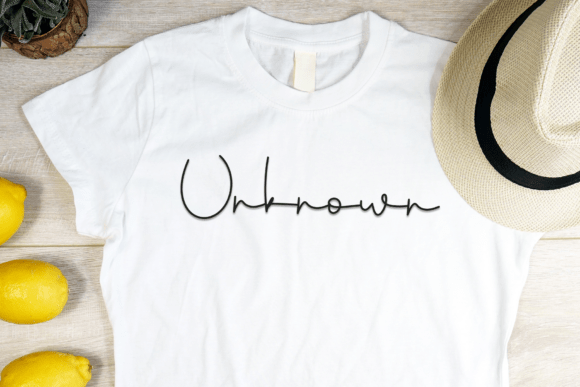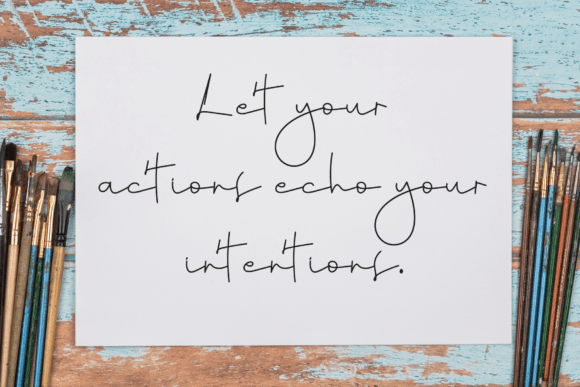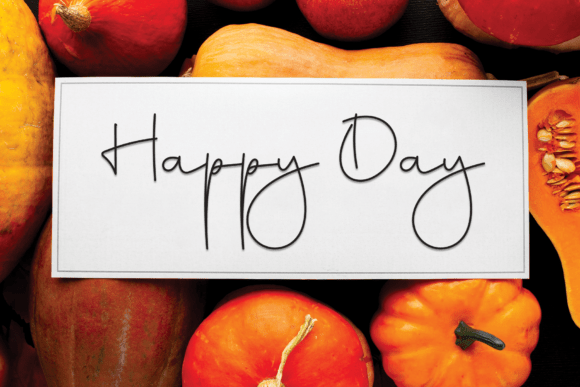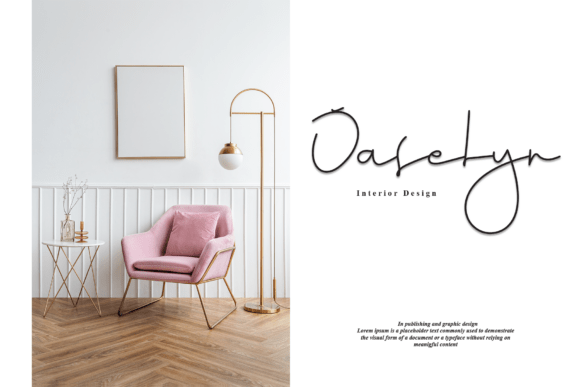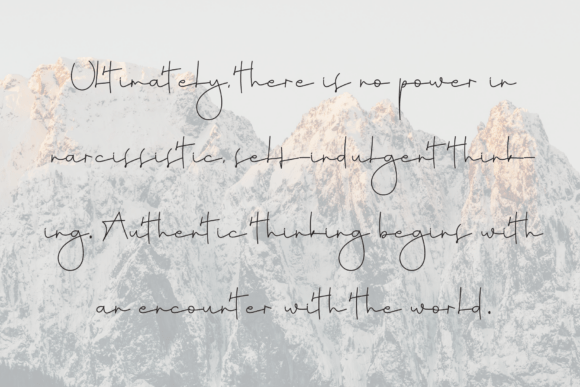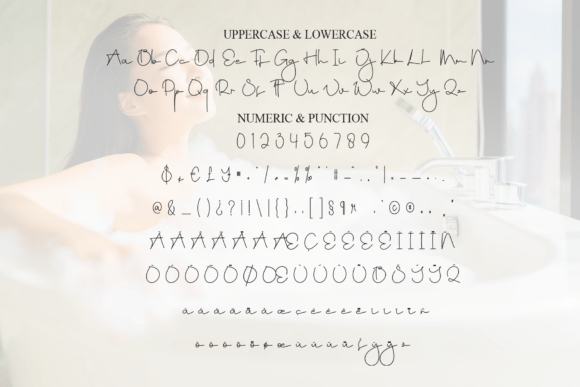
Introducing Bathine Font: Elevate Your Creative Vision with Effortless Elegance
In the world of typography, a new handwritten font has emerged to capture the essence of modern sophistication. Meet Bathine, a stunning typeface that embodies the effortless grace of a contemporary signature. With its unique blend of thin, monoline weight and oversized, fluid capitals, Bathine is poised to elevate your creative vision and add a touch of luxury to your visual identity.
The Characteristics of Bathine Font
Bathine font is defined by its distinct characteristics, which set it apart from other typefaces. Its thin, monoline weight gives it an airy and sophisticated aesthetic, perfect for designs that require a sense of elegance and refinement. The oversized, fluid capitals add a touch of drama and flair, making it ideal for headlines, titles, and signatures. The elongated horizontal strokes and unscripted rhythm of Bathine evoke a sense of high-end artisanal beauty, reminiscent of handcrafted luxury goods.
Perfect for Boutique Branding and Luxury Packaging
Bathine font is an exceptional choice for boutique branding, luxury spa packaging, and high-end product design. Its sophisticated and elegant aesthetic makes it perfect for brands that want to convey a sense of refinement and exclusivity. Whether you’re designing a logo, label, or packaging, Bathine adds a touch of handcrafted prestige and tranquil elegance to your visual identity. For luxury spas, wellness centers, and high-end retailers, Bathine font offers a unique opportunity to create a distinctive brand voice that resonates with discerning customers.
Elevate Your Editorial Layouts and Stationery
Bathine font is not just limited to branding and packaging; it’s also perfect for editorial layouts and bespoke stationery. Add a personal touch to your professional media with this beautiful typeface, which lends itself perfectly to chic editorial designs, such as fashion magazines, lifestyle publications, and upscale journals. For stationery, Bathine font offers a unique opportunity to create bespoke letterheads, invoices, and greeting cards that exude elegance and sophistication.
Crafting a Signature-Style Logo with Bathine
One of the most exciting applications of Bathine font is in creating signature-style logos. With its fluid, handwritten aesthetic, Bathine allows designers to craft unique and personalized logos that capture the essence of a brand’s identity. Whether you’re designing a logo for a new business or rebranding an existing one, Bathine font offers a versatile and elegant solution that will elevate your visual identity.
Key Features and Benefits of Bathine Font
- Thin, monoline weight: Gives Bathine an airy and sophisticated aesthetic.
- Oversized, fluid capitals: Add a touch of drama and flair to your designs.
- Elongated horizontal strokes: Evoke a sense of high-end artisanal beauty.
- Unscripted rhythm: Creates a sense of handcrafted prestige and tranquil elegance.
- Perfect for boutique branding, luxury packaging, and editorial layouts: Elevate your visual identity with Bathine font.
In conclusion, Bathine font is a stunning handwritten typeface that offers a unique blend of elegance, sophistication, and refinement. With its thin, monoline weight, oversized capitals, and fluid strokes, Bathine is perfect for designers and crafters looking to elevate their creative vision and add a touch of luxury to their visual identity. Whether you’re designing a signature-style logo, luxury packaging, or editorial layouts, Bathine font is an exceptional choice that will deliver a sense of handcrafted prestige and tranquil elegance to your designs.